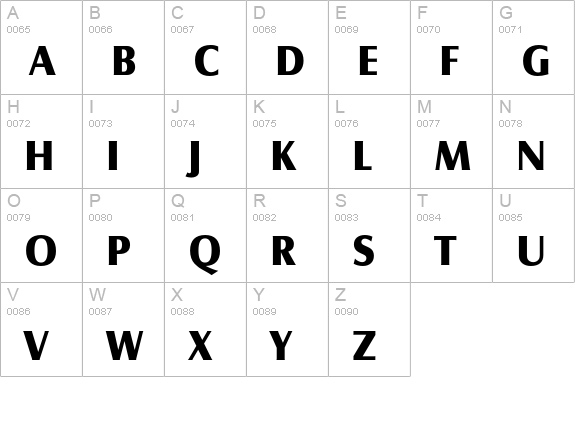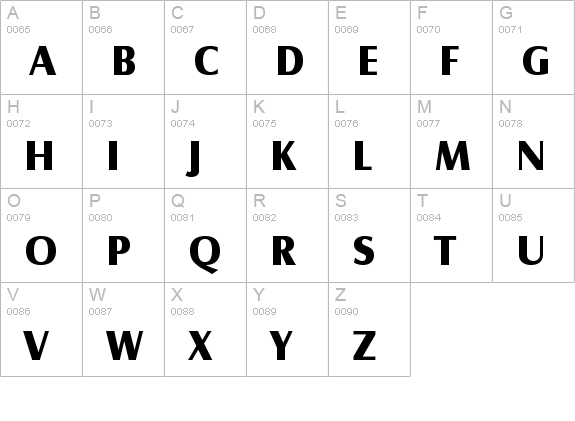
Salzburg-Bold is a strong, high-contrast variant in the Salzburg typeface family \xE2\x80\x94 well suited to headlines, attention-grabbing titles, and strong calls-to-action.
Introducing Salzburg-Bold, a mesmerizing font that effortlessly combines elegance and boldness to create a unique typographic experience. With its strong, distinctive lines and graceful curves, Salzburg-Bold commands attention and adds a touch of sophistication to any design project. This font is perfect for crafting eye-catching headlines, striking logos, and captivating typography that demands to be noticed. Its bold weight captures attention, making it ideal for display purposes, while its refined details ensure legibility at smaller sizes. What sets Salzburg-Bold apart is not only its impeccable design but also its accessibility. It is available for free download exclusively at FontsMarket.com, allowing designers and creatives alike to unleash their creativity without any limitations. Whether you're a professional graphic designer or a passionate hobbyist, Salzburg-Bold is here to elevate your designs to new heights. With Salzburg-Bold, every letter is meticulously crafted with precision and care, resulting in a font that exudes confidence and sophistication. It effortlessly blends classic and contemporary elements, making it versatile for a wide range of design projects. From sleek and modern to timeless and elegant, Salzburg-Bold adapts effortlessly to your creative vision. So, embrace the power of Salzburg-Bold and let your designs make a lasting impression. Download this captivating font for free at FontsMarket.com and take your creative endeavors to the next level.